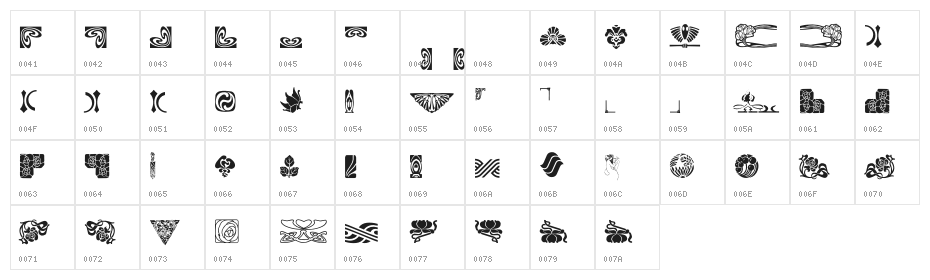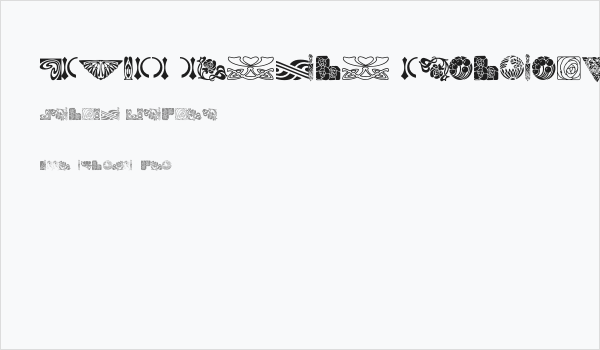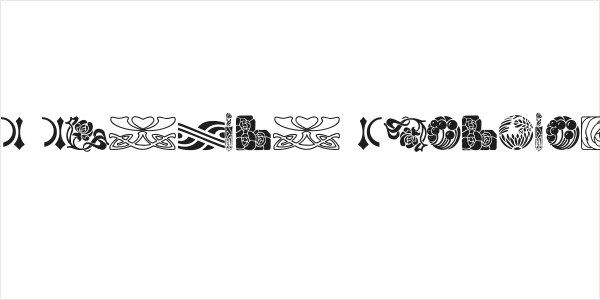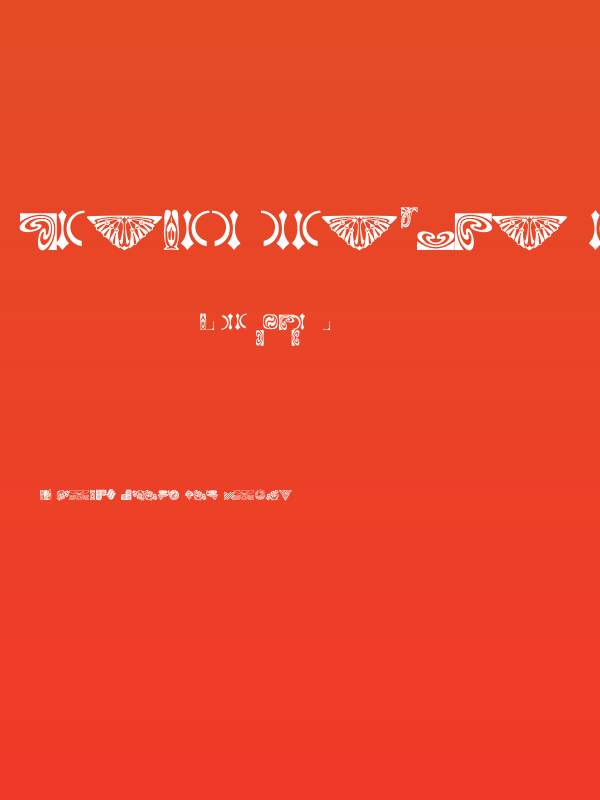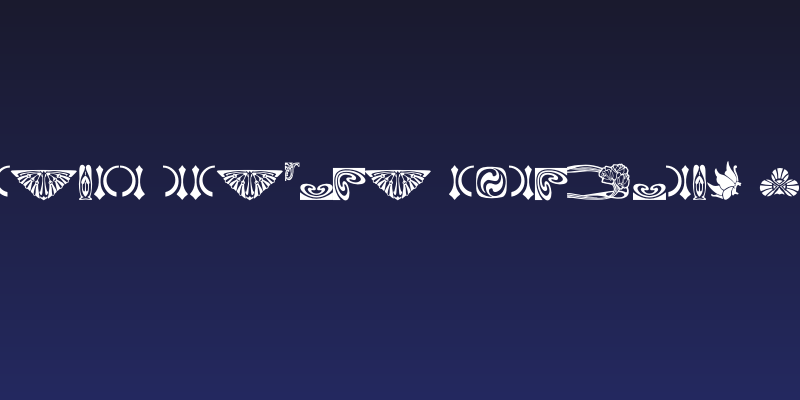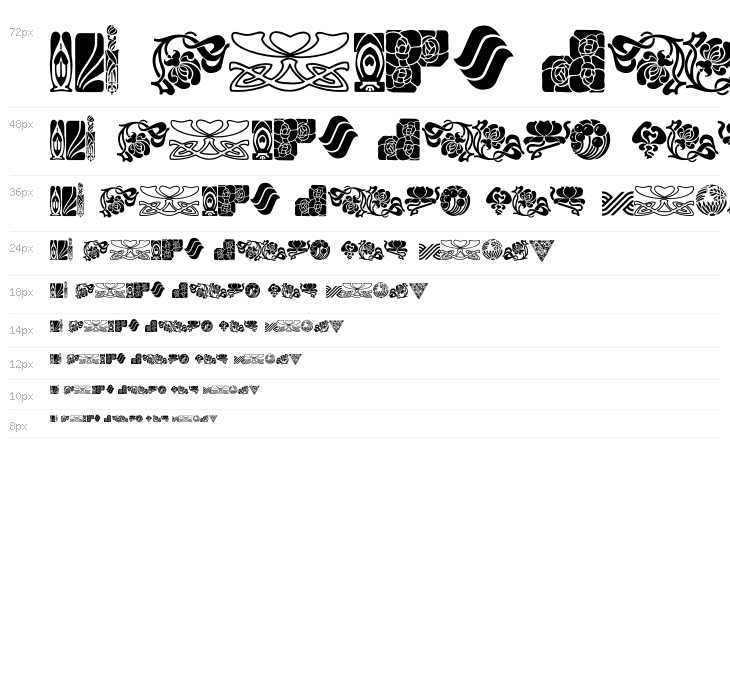
BOUTON Nouveau Ornaments II Font
BOUTON Nouveau Ornaments II Description
This collection features intricate ornamental designs inspired by the Art Nouveau movement. The elements include floral motifs, geometric patterns, and elegant curves, all characterized by their flowing lines and organic forms. The designs are highly decorative, showcasing a blend of symmetry and natural themes, perfect for adding a touch of elegance and sophistication to any project. The motifs are versatile, suitable for borders, frames, and embellishments, offering a rich visual appeal that can enhance both digital and print media.
| Use Case | Decorative elements, Borders, Frames |
| Proposed Projects | Ideal for wedding invitations, decorative borders, book covers, packaging design, and artistic posters. |